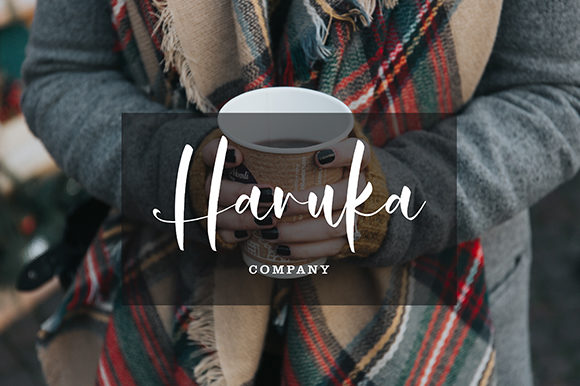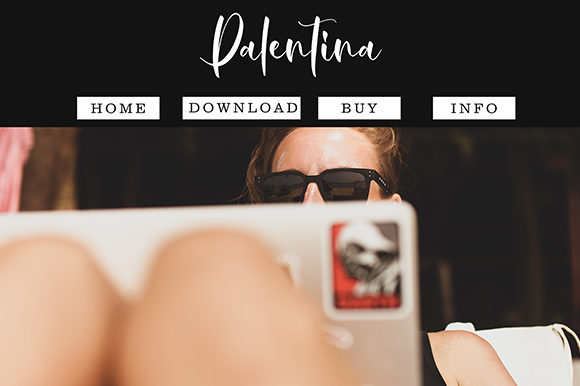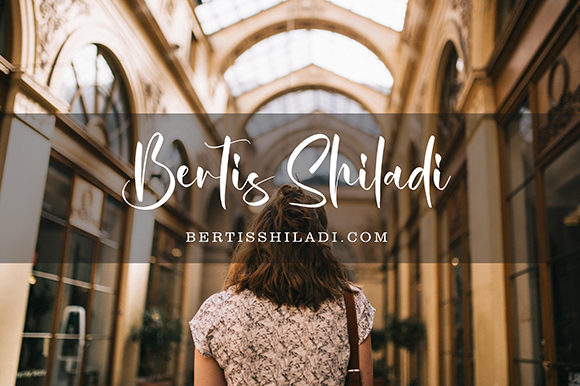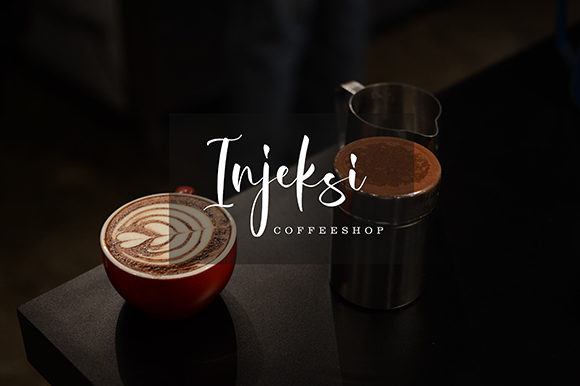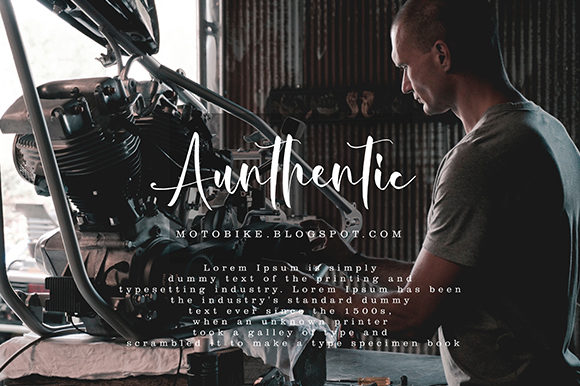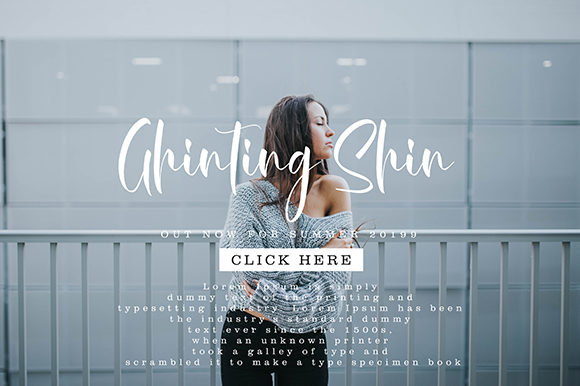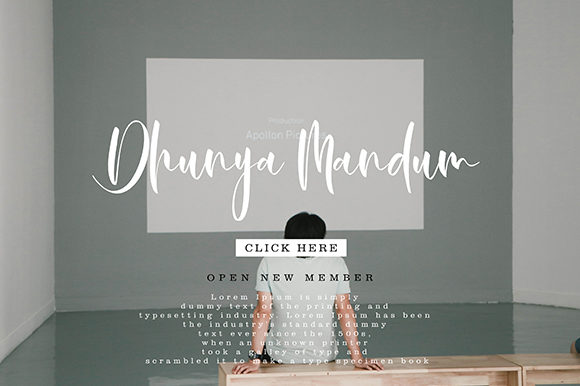
Cintthia Font
About Cintthia Font
Cintthia is a cool and charming handwritten font with incredible legibility and smooth lining. It will effortlessly elevate any design project.